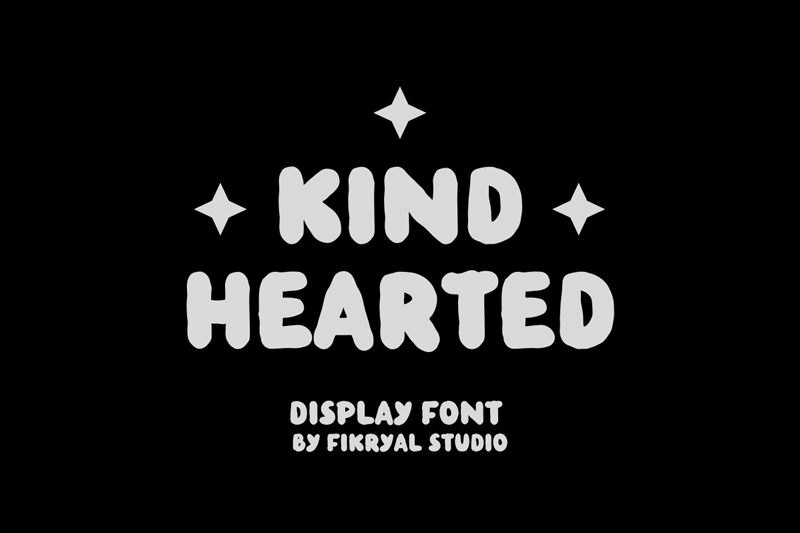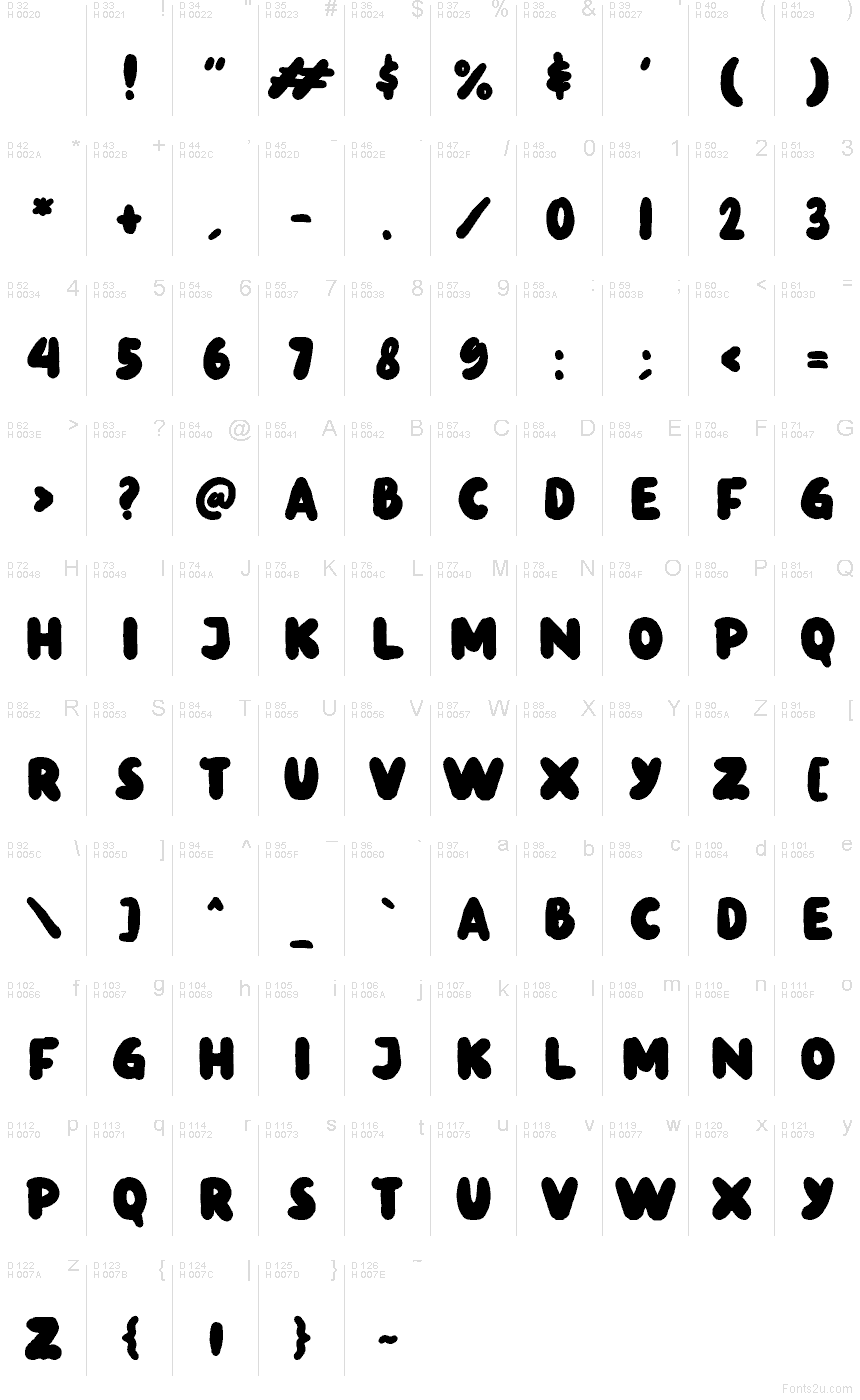
Kind Hearted
Kind Hearted font by Fikryal Studio is a free cartoon display typeface with a squishy, hand-cut feel that looks like it’s been stamped in soft ink. The bold, rounded shapes and slightly uneven edges give every word a warm hug, turning even simple phrases into something friendly and approachable. It reads clearly at a glance, but still keeps that playful, homemade charm that kids and families gravitate toward.
Using Kind Hearted, you can bring instant sweetness to children’s book covers, birthday invitations, classroom posters, stickers, social media graphics, and YouTube thumbnails. This free font holds its shape beautifully at large sizes, where its inky texture and chunky forms can really shine. For a simple pairing, use Kind Hearted for headlines and match it with a clean, light sans serif for smaller supporting text.